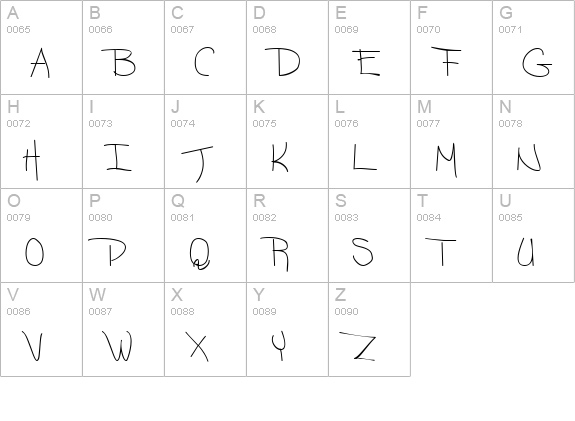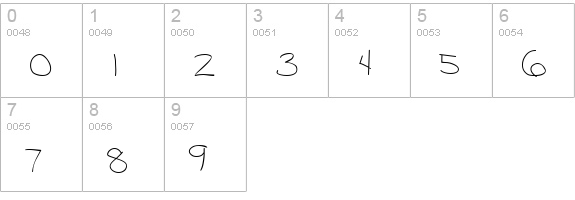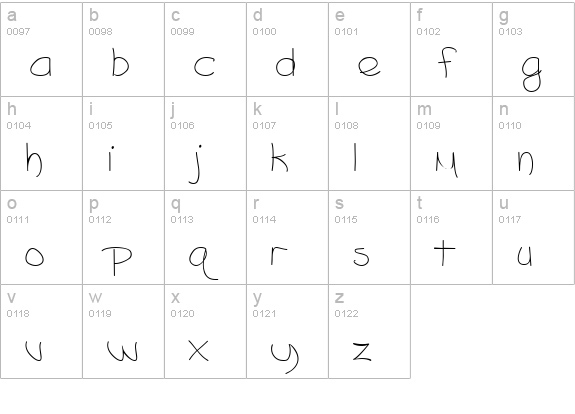
Sirene Font Details
Sirene font is a stunning and elegant typeface that exudes sophistication and charm. With its graceful curves and stylish letterforms, Sirene is perfect for adding a touch of class to any design project. This versatile font is suitable for a wide range of applications, from elegant invitations to eye-catching logos. The best part? Sirene font is completely free to download at FontsMarket.com. Whether you're a professional designer or a hobbyist looking to elevate your projects, Sirene font offers a sleek and modern look that is sure to impress. Don't miss out on this fantastic opportunity to enhance your designs with the beauty of Sirene font. Download it today and let your creativity soar!